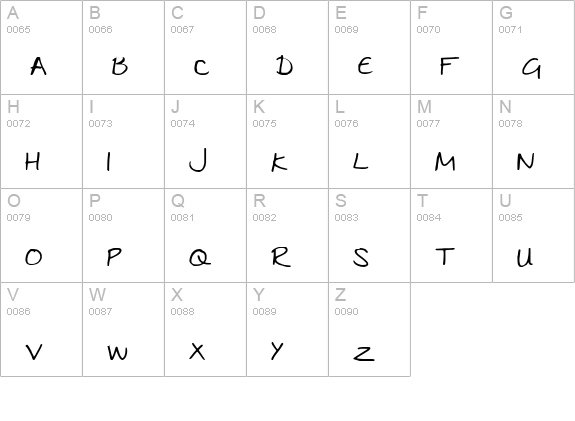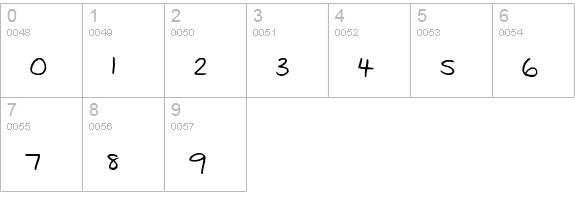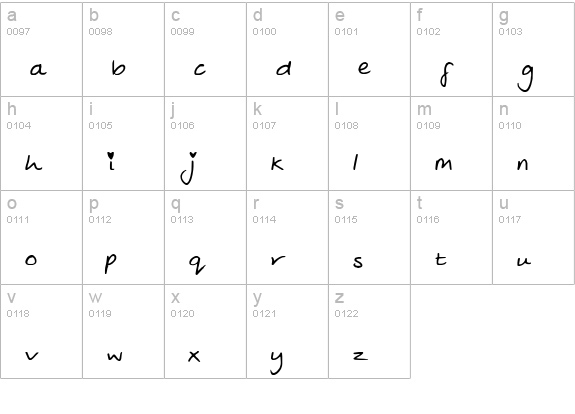
Julies Font Details
Introducing Julie's Font - a stunning and versatile typeface that exudes elegance and sophistication. With its unique curves and stylish flourishes, Julie's Font is perfect for adding a touch of class to your designs. Whether you're working on invitations, branding, or any other project, this font will surely make a statement. What makes Julie's Font even more appealing is that it is available for free download at FontsMarket.com. Yes, you read that right - this exquisite font can be yours at no cost! Don't miss out on the opportunity to elevate your designs with Julie's Font. Download it now and let your creativity shine!